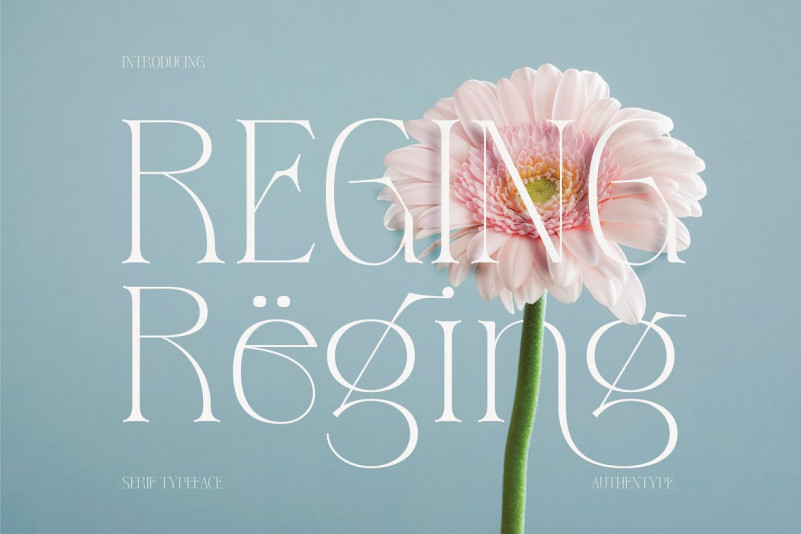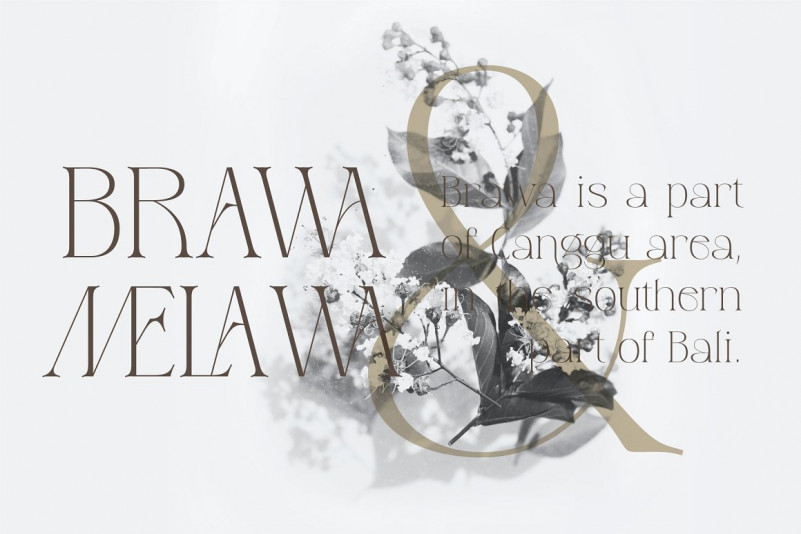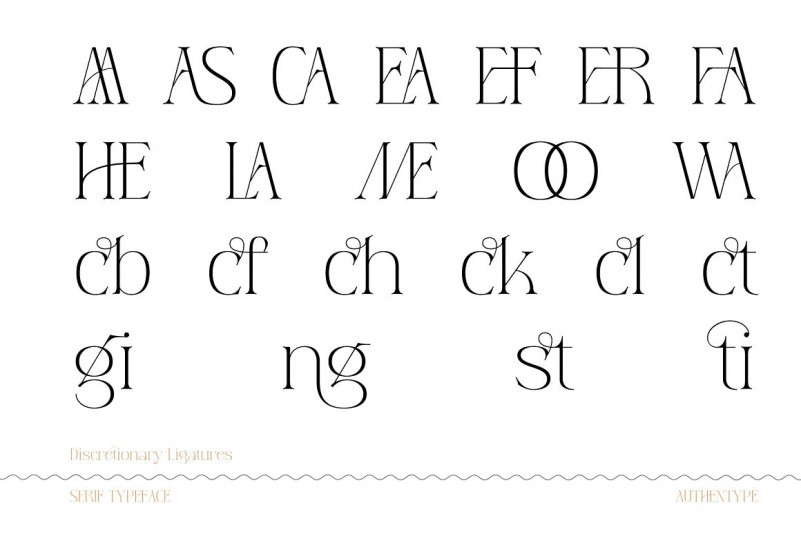
Reging Font
Reging serif typeface with clean leading and trailing lines followed by body flexibility. Reging This serif font is perfect for beauty product brands. Using this font is perfect for beauty brochures, packaging, magazines, business cards, and even greeting cards.